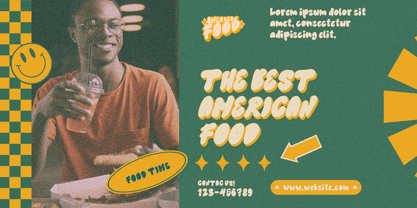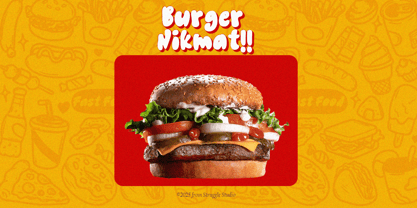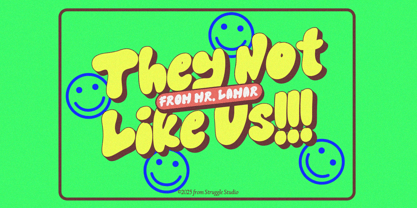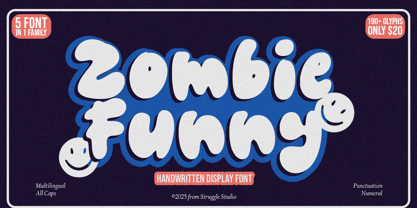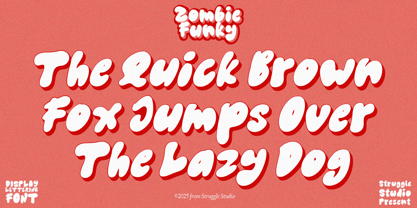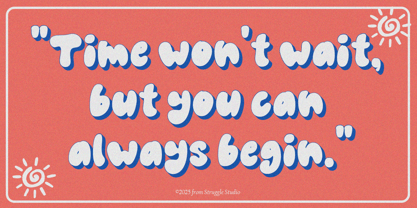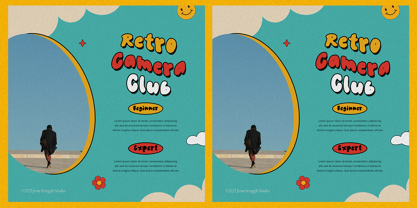
Zombie Funny
The Zombie Funny Font Family was designed by Andri Kurniawan and published by Struggle Studio. Zombie Funny contains 4 styles and family package options. More about this family
Zombie Funky – Handwritten Display Font
Zombie Funky is a playful and bold handwritten display font packed with energy and retro charm. With its chunky letterforms, shadow effects, and cheerful smiley accents, this font adds a fun, funky vibe to any design. Whether you're crafting posters, merchandise, packaging, or digital graphics, Zombie Funky delivers instant personality.
This font family includes 4 distinct styles, perfect for mixing and matching to create dynamic typographic compositions. Featuring over 190+ glyphs, it supports multilingual characters, punctuation, and numerals—all in ALL CAPS format for maximum impact.
Key Features:
4 font styles in 1 family
190+ glyphs
Multilingual support
All caps
Includes punctuation & numerals
Ideal for retro, bold, or playful designs
Zombie Funny